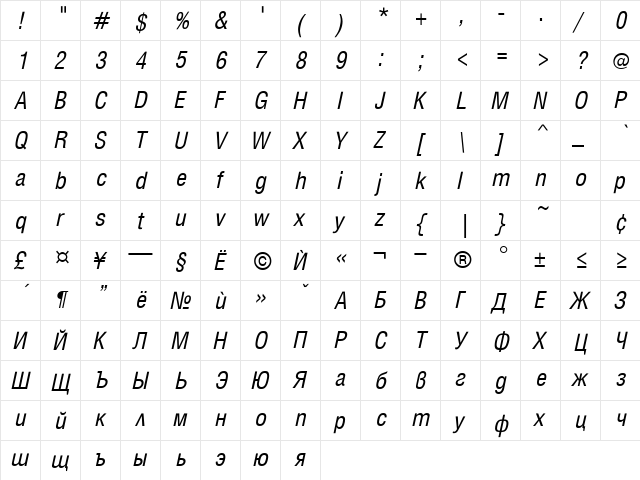
HebarCond Italic
Design Context for HebarCond Typeface
HebarCond takes a measured approach to typography — its balanced proportions and neutral character make it a reliable workhorse for both digital and print work. The dynamic lean of this cut emphasises speed and emphasis in any layout. Its narrow stance lets it pack a punch even in space-constrained designs.